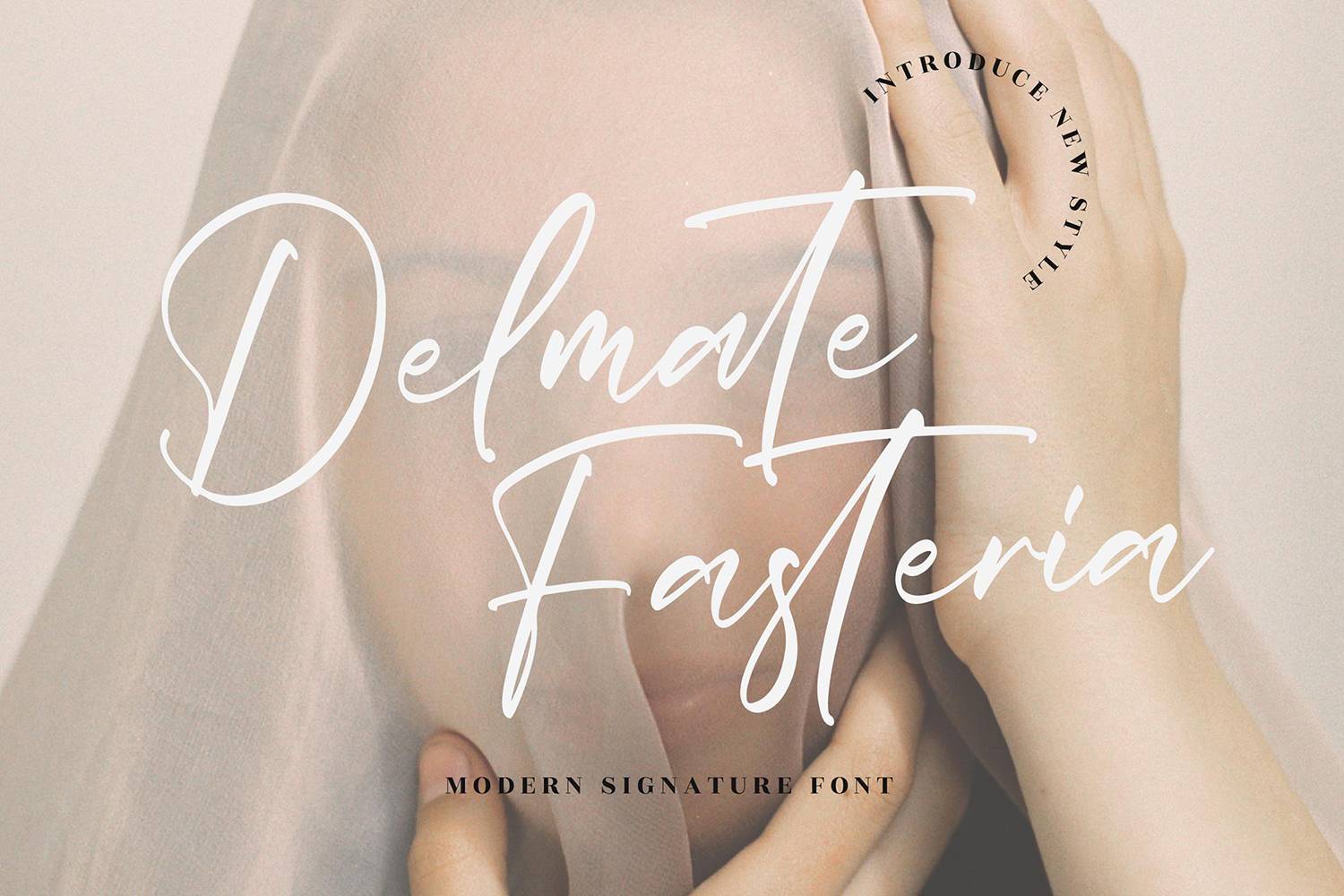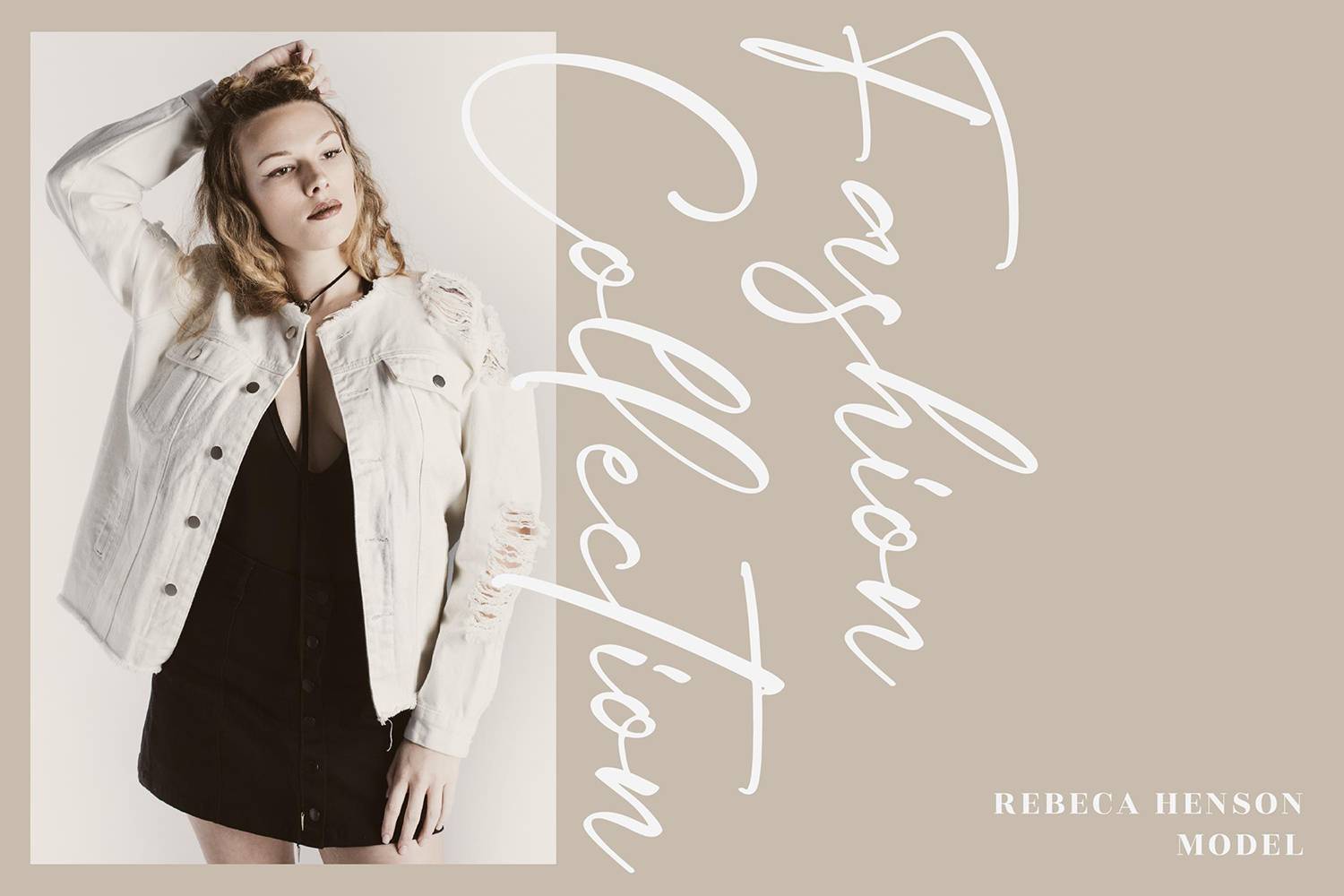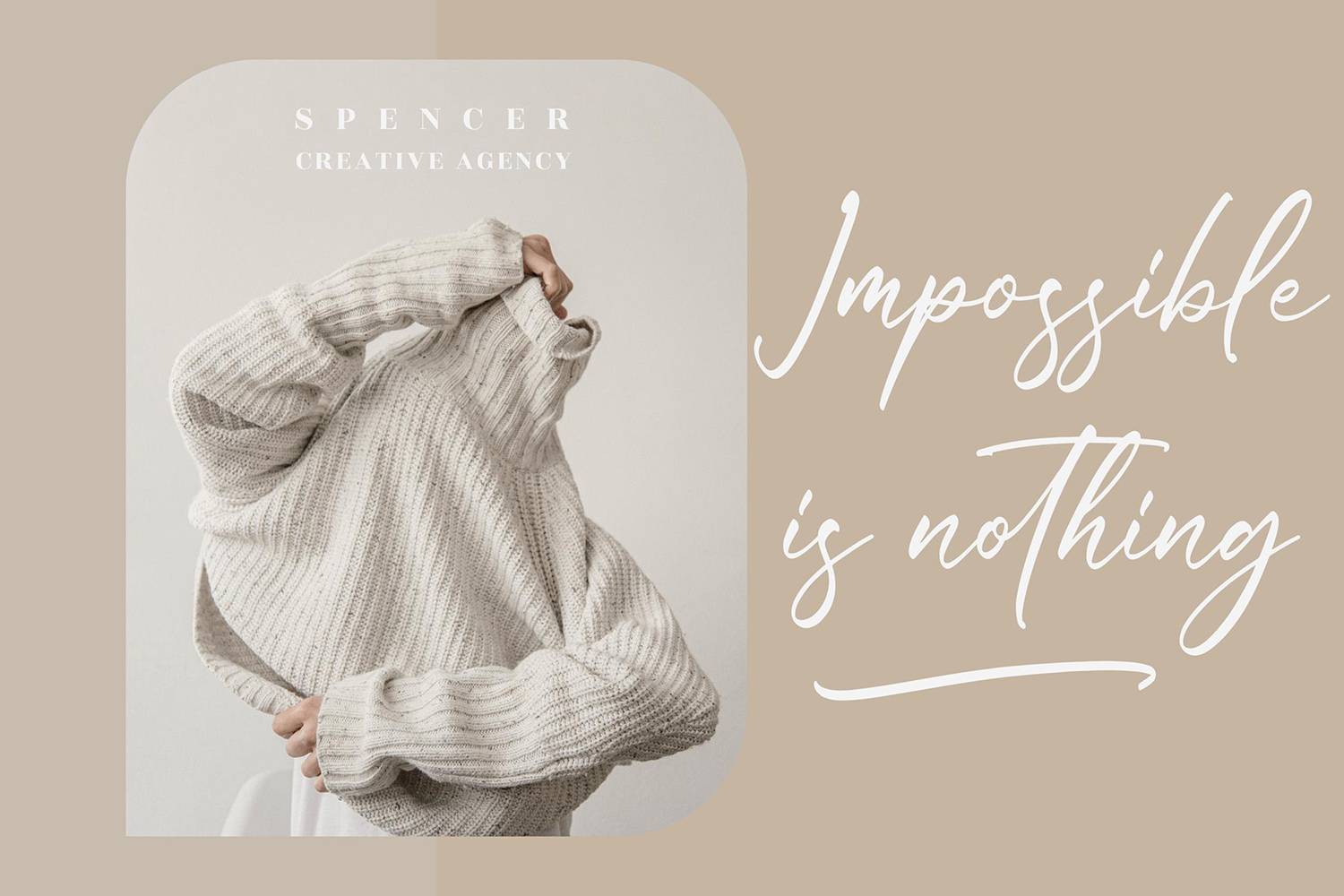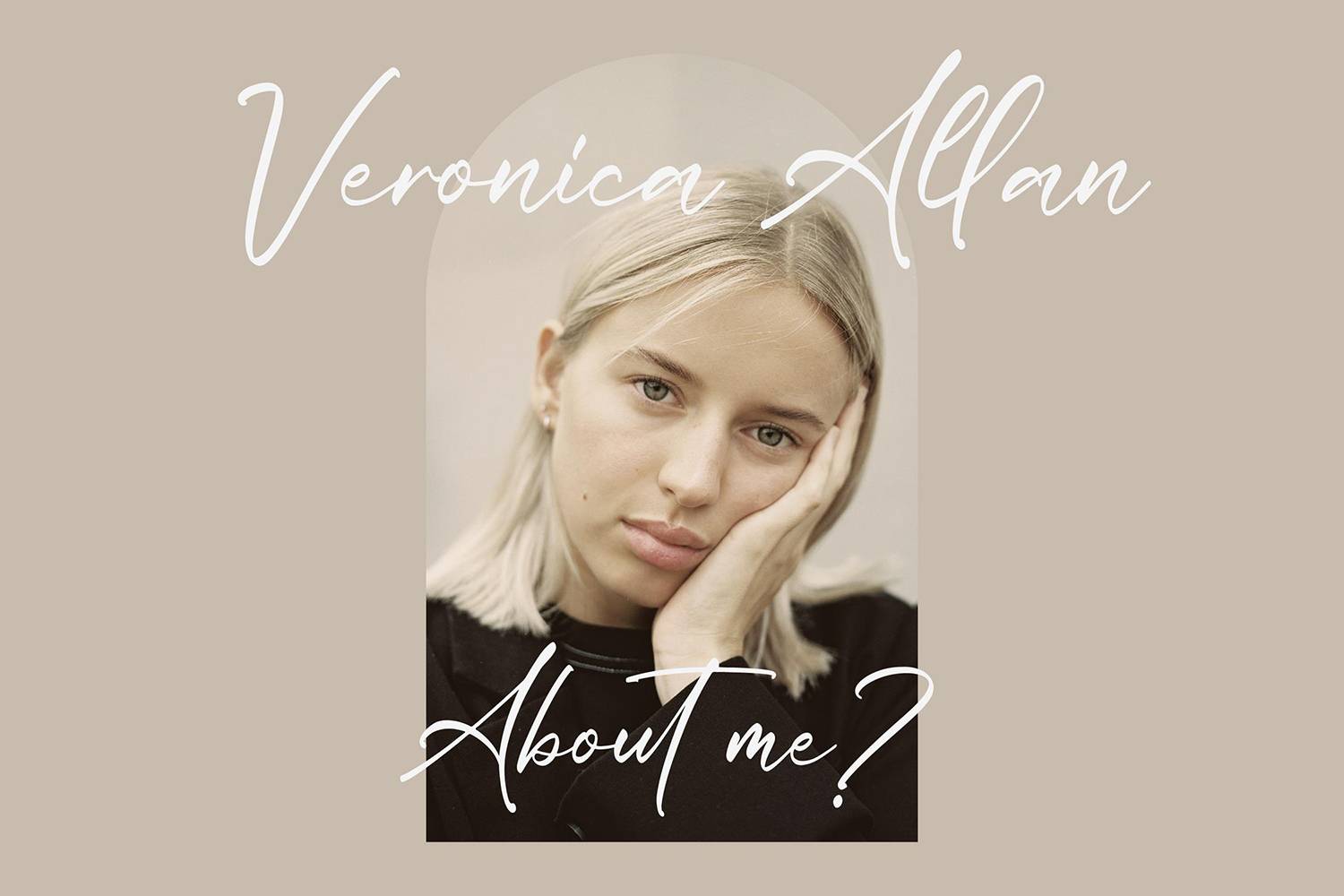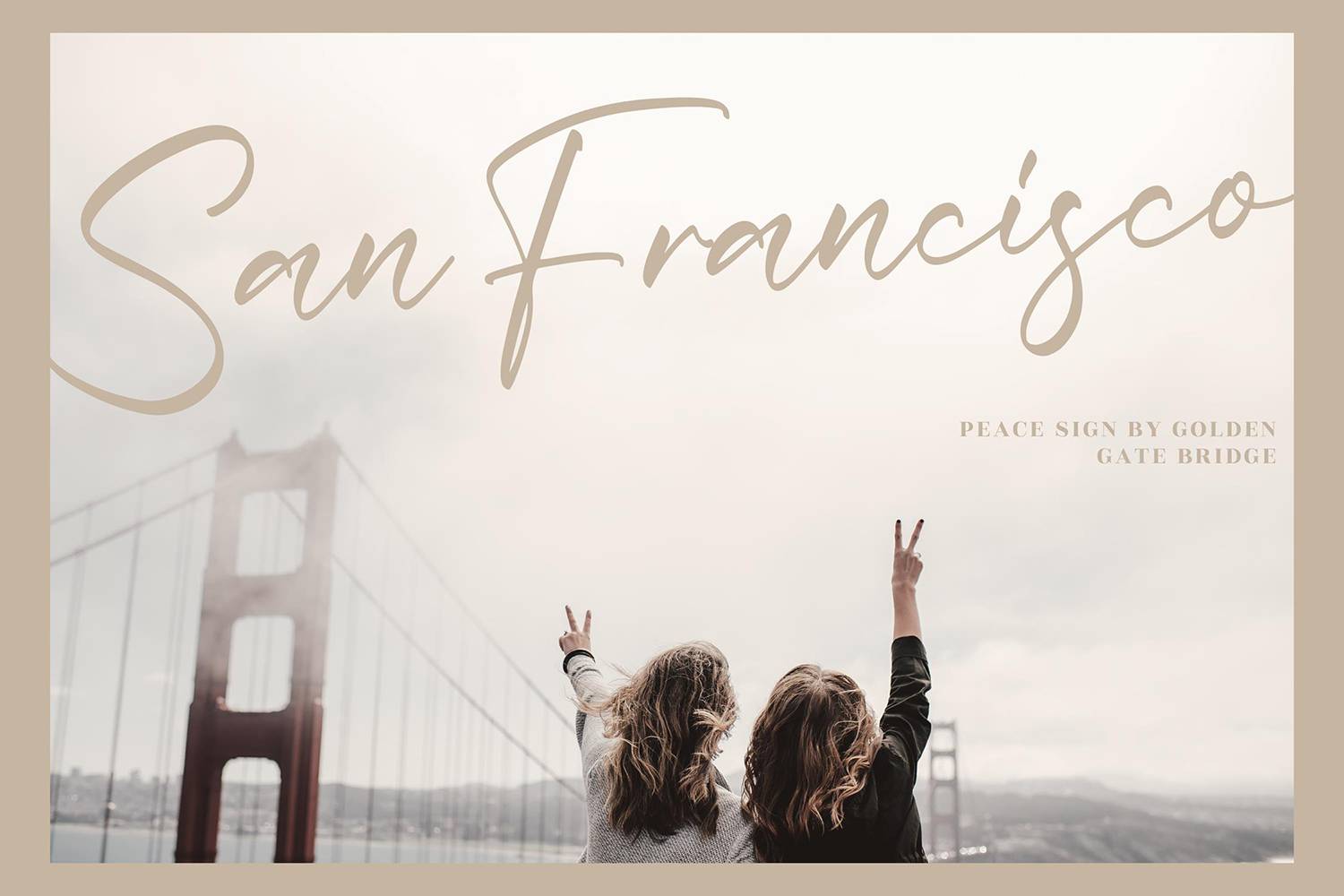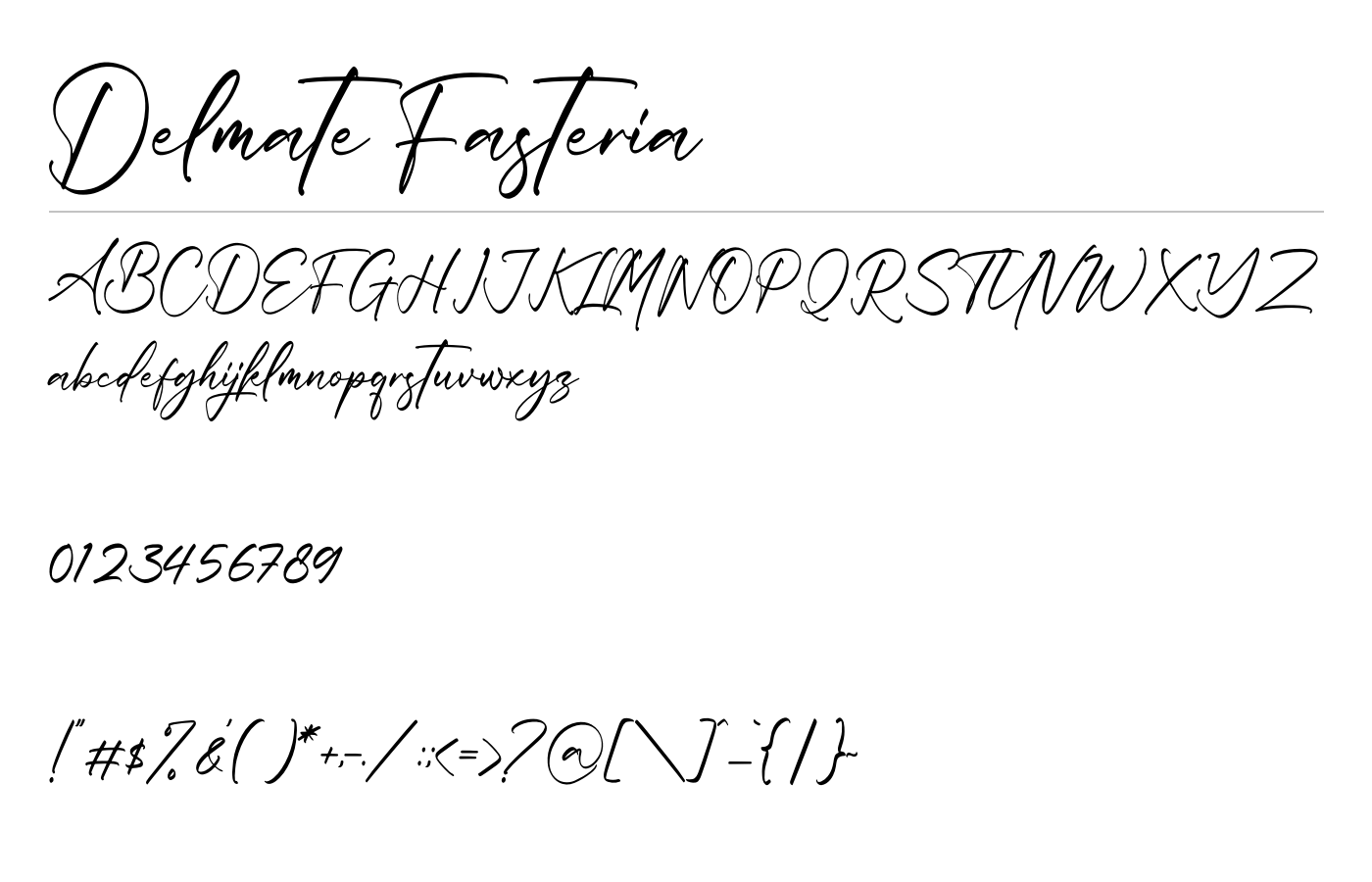
Delmate Fasteria is an elegant script font characterized by its fluid, handwritten appearance with varying stroke weights that create a dynamic, natural flow. Its refined and slightly playful style makes it ideal for branding, invitations, and creative projects seeking a personal, sophisticated touch. This font works especially well in headlines and logos where a stylish, modern calligraphic look is desired.
Delmate Fasteria Font
About Delmate Fasteria Font